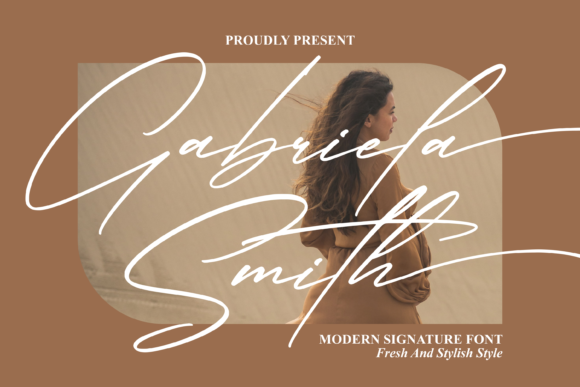
Unleash the Allure of Gabriela Smith: A Font Symphony for E-commerce Enchantment
Step into a world of refined artistry with Gabriela Smith, a mesmerizing script font that breathes life into your e-commerce designs. This enchanting creation from Letternity is a symphony of elegance and sophistication, meticulously crafted to elevate your online presence.
Gabriela Smith dances across the digital canvas with a graceful fluidity, its delicate strokes evoking a sense of timeless beauty. Each letterform is a testament to the artistry of its designer, showcasing a harmonious blend of classic charm and contemporary flair.
With Gabriela Smith as your trusted companion, your e-commerce website transforms into a haven of sophistication, captivating your visitors with its allure. This font is the epitome of versatility, effortlessly adapting to a myriad of design aesthetics.
Whether you seek to craft captivating product descriptions, design visually stunning social media posts, or create eye-catching logos that leave a lasting impression, Gabriela Smith stands as your steadfast ally.
But Gabriela Smith's allure extends beyond its aesthetic prowess. This font is a beacon of functionality, meticulously engineered to enhance user experience. Its PUA encoding ensures effortless access to a treasure trove of glyphs and swashes, empowering you to unleash your creativity without boundaries.